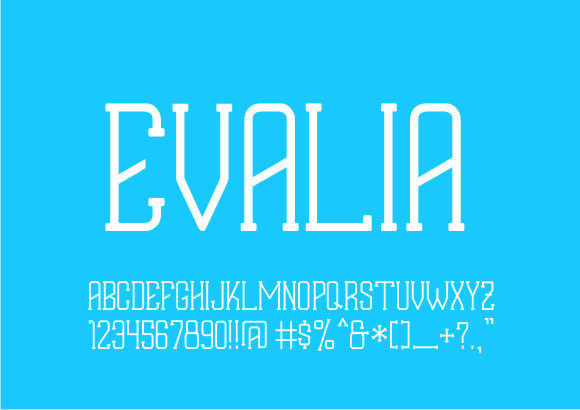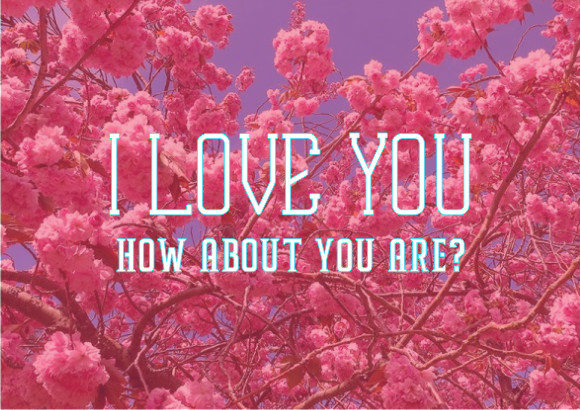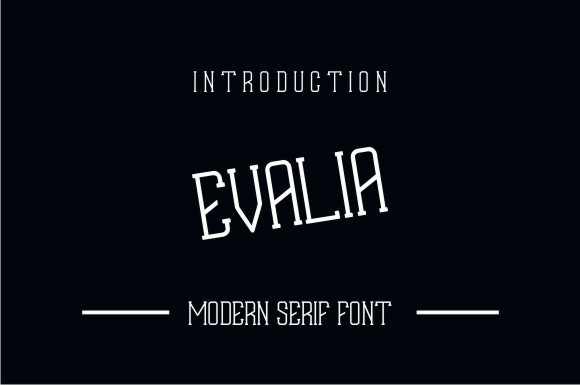
Discover the Elegance of Evalia Font: A Modern Serif Marvel
Evalia is a truly unique serif font with a unique design. Get inspired by its modern charm!
Introduction to Evalia Font
In the vast and ever-evolving world of typography, a good font can make all the difference in a design project. For designers and crafters looking for a touch of elegance and modernity, the Evalia font stands out as a remarkable choice. This article delves into the characteristics, uses, and benefits of the Evalia font, providing insights into why it has become a favorite among typography enthusiasts.
What Makes Evalia Font Unique?
Evalia is not just another serif font; it brings a fresh perspective to traditional typography. Its unique design combines classic serif elements with modern flair, making it versatile for various design applications. Whether you’re working on a branding project, a website, or a craft, Evalia offers a sophisticated look that can elevate your work.
Key Features of Evalia Font
- Modern Serif Design: Evalia boasts a contemporary take on serif fonts, with clean lines and subtle curves that give it a distinctive appearance.
- Versatility: Its design makes it suitable for a wide range of projects, from digital media to print materials.
- Legibility: Despite its elegant design, Evalia maintains high legibility, making it perfect for both headings and body text.
- Unique Font Style: The font’s unique style sets it apart from more traditional serif fonts, offering a fresh aesthetic for designers.
Uses of Evalia Font
The versatility of Evalia font makes it an excellent choice for various design projects. Here are some popular applications:
- Branding and Logo Design: Evalia’s unique and elegant design makes it perfect for creating memorable brand identities.
- Web Design: Its modern charm and legibility render it ideal for website headings, making your site stand out.
- Print Materials: From brochures and magazines to business cards, Evalia adds a touch of sophistication to any print material.
- Crafting and DIY Projects: For crafters, Evalia can add a professional and stylish element to handmade cards, journals, and other DIY projects.
Benefits of Using Evalia Font
Choosing Evalia font for your projects comes with several benefits:
- Enhances Aesthetic Appeal: Its modern design can significantly enhance the visual appeal of your project.
- Improves Readability: Despite its elegance, Evalia ensures that your content remains readable and engaging.
- Saves Time: With its versatility, you can use Evalia across multiple projects, reducing the need to search for different fonts.
- Supports Creativity: Evalia’s unique design encourages creativity, allowing designers to experiment with various styles and layouts.
How to Get Inspired by Evalia’s Modern Charm
Getting inspired by Evalia’s modern charm involves experimenting with its unique features and exploring different design possibilities:
- Experiment with Typography: Play around with Evalia’s font sizes, weights, and styles to create visually appealing typography.
- Pair with Other Fonts: Try pairing Evalia with complementary fonts to create contrast and add depth to your designs.
- Apply Across Different Media: Use Evalia in various design projects to see how its appearance changes and adapts across different mediums.
Evalia font, with its truly unique serif design and modern charm, offers a refreshing alternative for designers and crafters seeking elegance and versatility. Its distinctive features, combined with its wide range of applications, make it an excellent addition to any design toolkit. Whether you’re aiming to create a stunning brand identity, an engaging website, or a beautiful craft project, Evalia is sure to inspire and elevate your work.